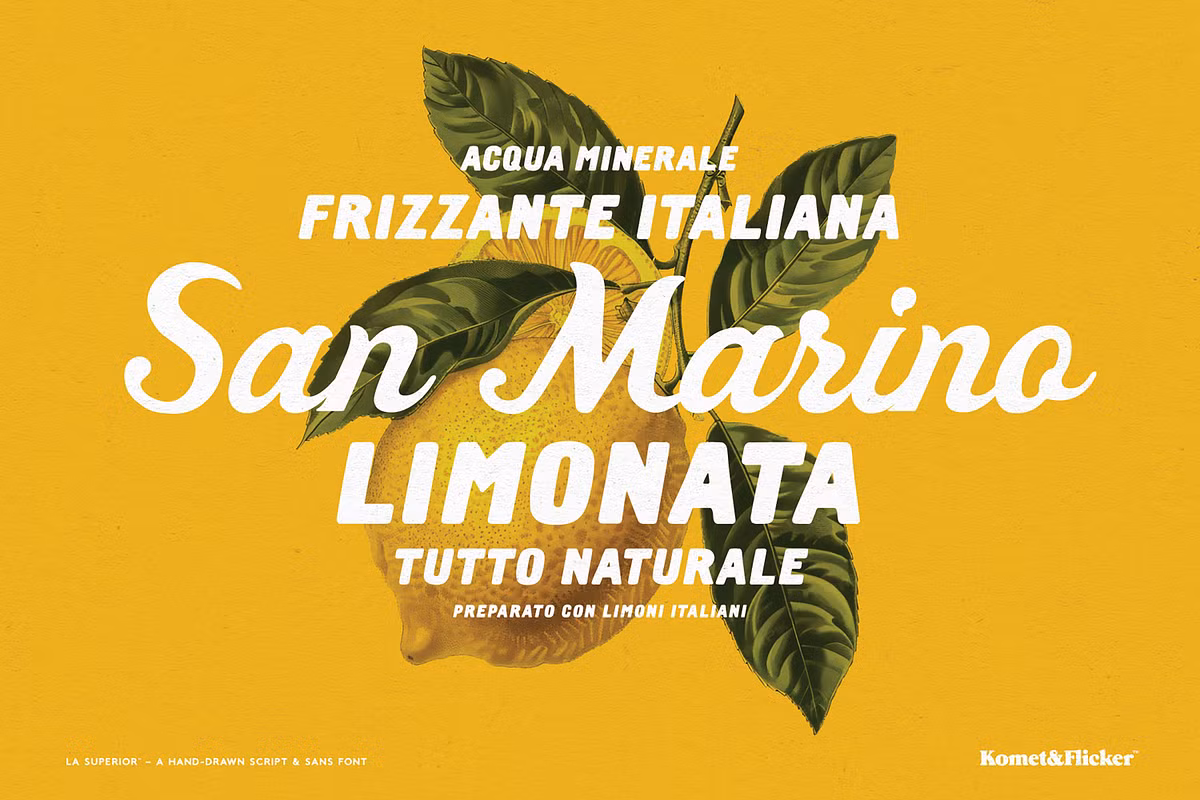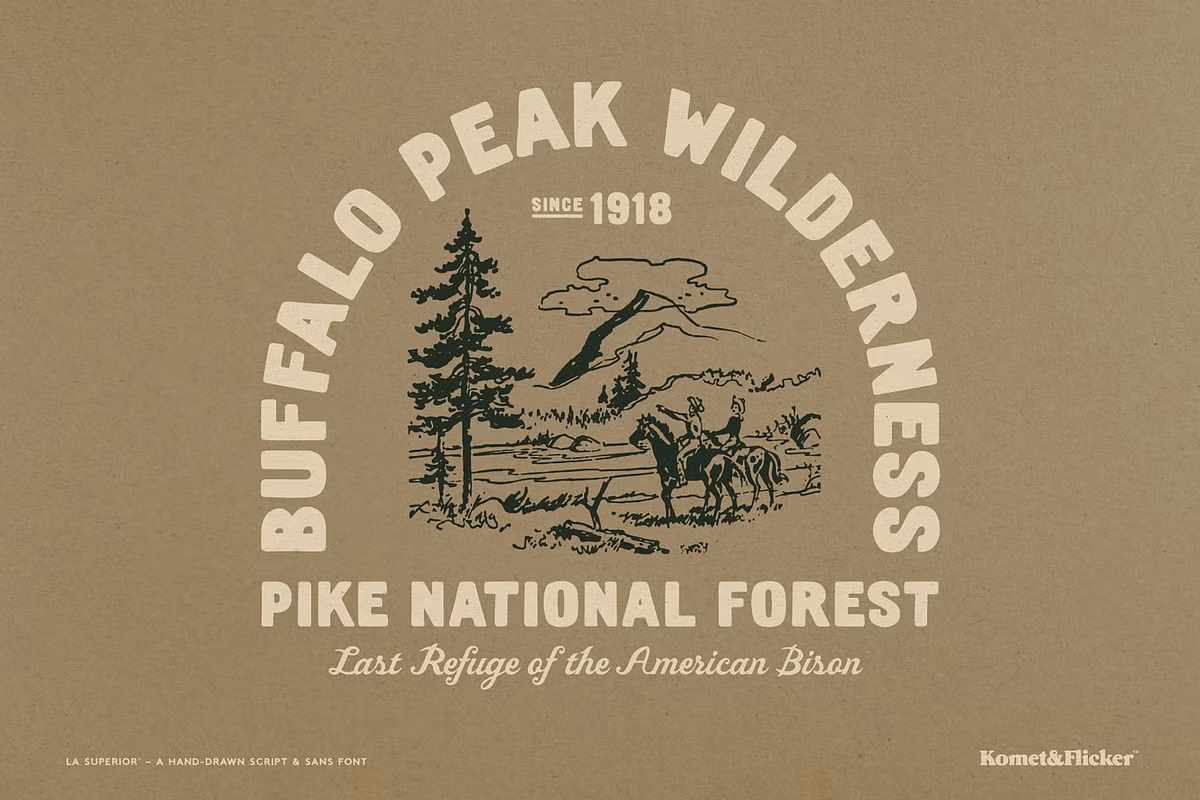
La Superior: Hand Drawn Font Trio for Creative Design Projects
Introducing La Superior: A Unique Hand Drawn Font Trio. La Superior is a hand drawn font trio that takes its cue from the wall lettering on taquerias. The font family shows a hand painted look that feels like the work of sign painters. The font includes a script style and two sans styles – a sans and an italic sans. La Superior fits design projects. The hand painted feel of La Superior makes a design feel real. The font stays easy to use every day. I notice the letters, in La Superior have a hand painted quality that reminds me of a taqueria sign.
Features of La Superior Font Trio
When I use the La Superior font trio I see more than a set of typefaces. The La Superior font trio is a group that gives you features to help your projects look good:
- Full Character Set: I see that La Superior Script has the letters. La Superior Script also has the lowercase letters, the characters, the numbers, the punctuation and some symbols.
- Custom Connectors: I like that Custom Connectors give the sans versions a list of eleven connector words such as AND, THE, and WITH. I see that Custom Connectors make the text flow naturally and make it easy to read.
- Pre-made Fractions: The two styles provide a set of pre-made fractions. Pre-made Fractions simplify the design process.
- Glyphs: In the design software such as Illustrator and Photoshop I can easily access custom glyphs. I then add custom glyphs to my projects.
Benefits of Using La Superior in Your Projects
Incorporating La Superior into your design toolkit comes with numerous benefits:
- Authenticity: The hand drawn look gives authenticity that the digital fonts often lack. Authenticity works well for the designs that need a touch.
- Versatility: I see Versatility lets La Superiors styles fit the restaurant menu. Versatility also lets La Superiors styles fit the poster for an event or the branding materials.
- Expressiveness: The expressive script and the clean lines of the sans versions give your text a look. Expressiveness makes the text stand out. Expressiveness does not crowd your design.
- User-Friendly: Connecting words and fractions let you put the parts into the design easily. I find that User-Friendly helps me finish a design faster. User-Friendly saves time and effort. User-Friendly makes the design look better for the viewer.
Creative Use Cases for La Superior
I use La Superior for projects. Here are some ideas on how to use the hand-drawn font trio:
- Restaurant Branding: Use La Superior Script for the logo or the menu headings. I think La Superior Script will show a bright welcoming dining experience.
- Event Posters: The expressive style of La Superior makes La Superior a good choice for posters. Those posters grab attention.
- Social Media Graphics: Create engaging posts and stories by combining La Superior’s script and sans styles for a cohesive look.
- Packaging Design: I want product packaging to have the warmth of La Superior. The product packaging will stand out on the shelves and attract customers.
Conclusion: Elevate Your Designs with La Superior
La Superior is not just a hand drawn font trio. La Superior gives designers a way to add personality and charm to their work. La Superior has features and practical uses. La Superior becomes a part of the designer’s toolkit. When a designer makes a headline or designs packaging, La Superior helps create work that looks good and connects with the people. I have used La Superior and I see that La Superior makes my headlines stand out. I use La Superior when I need a look for a label or a flyer. La Superior lets me add a touch quickly.